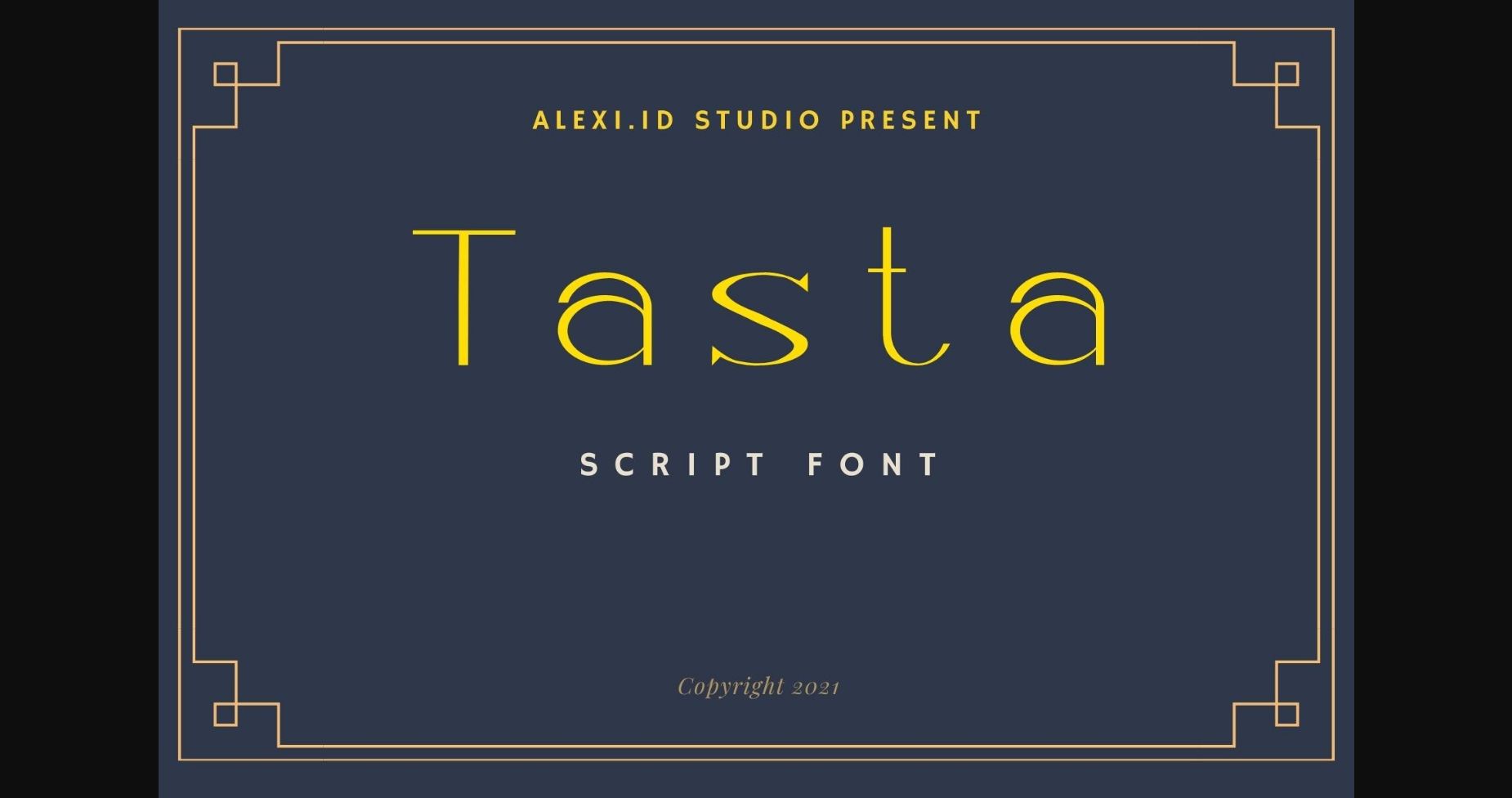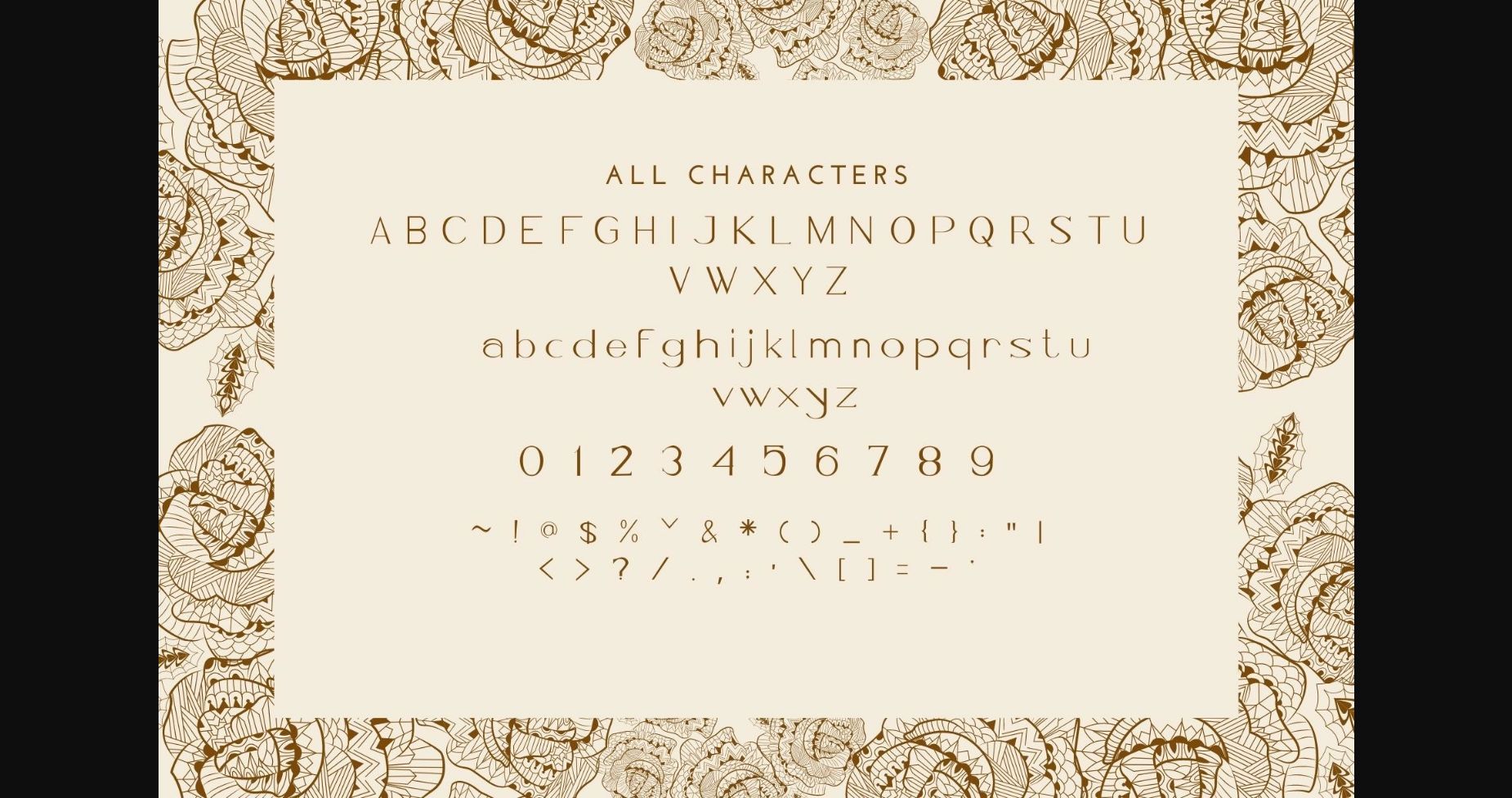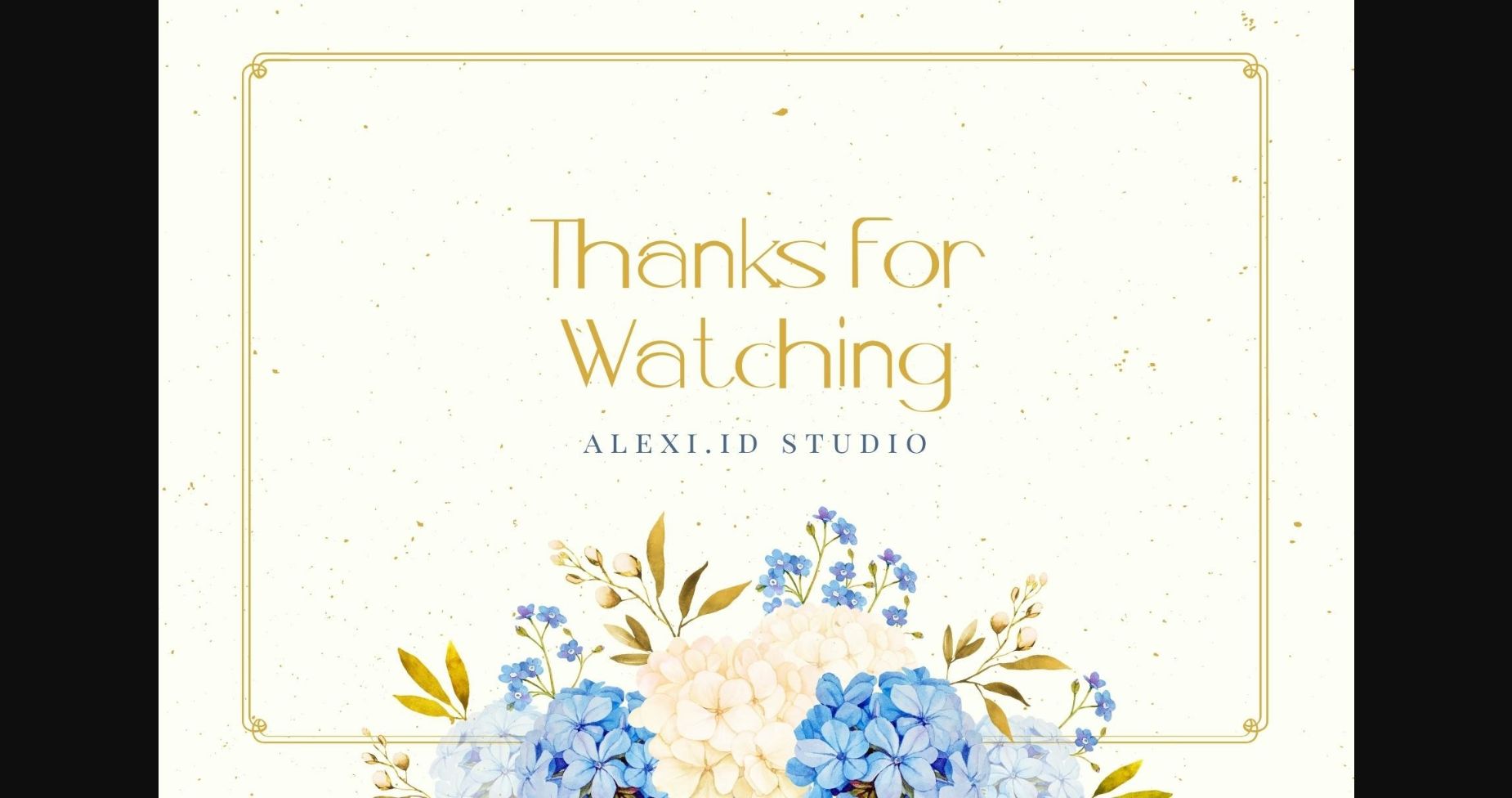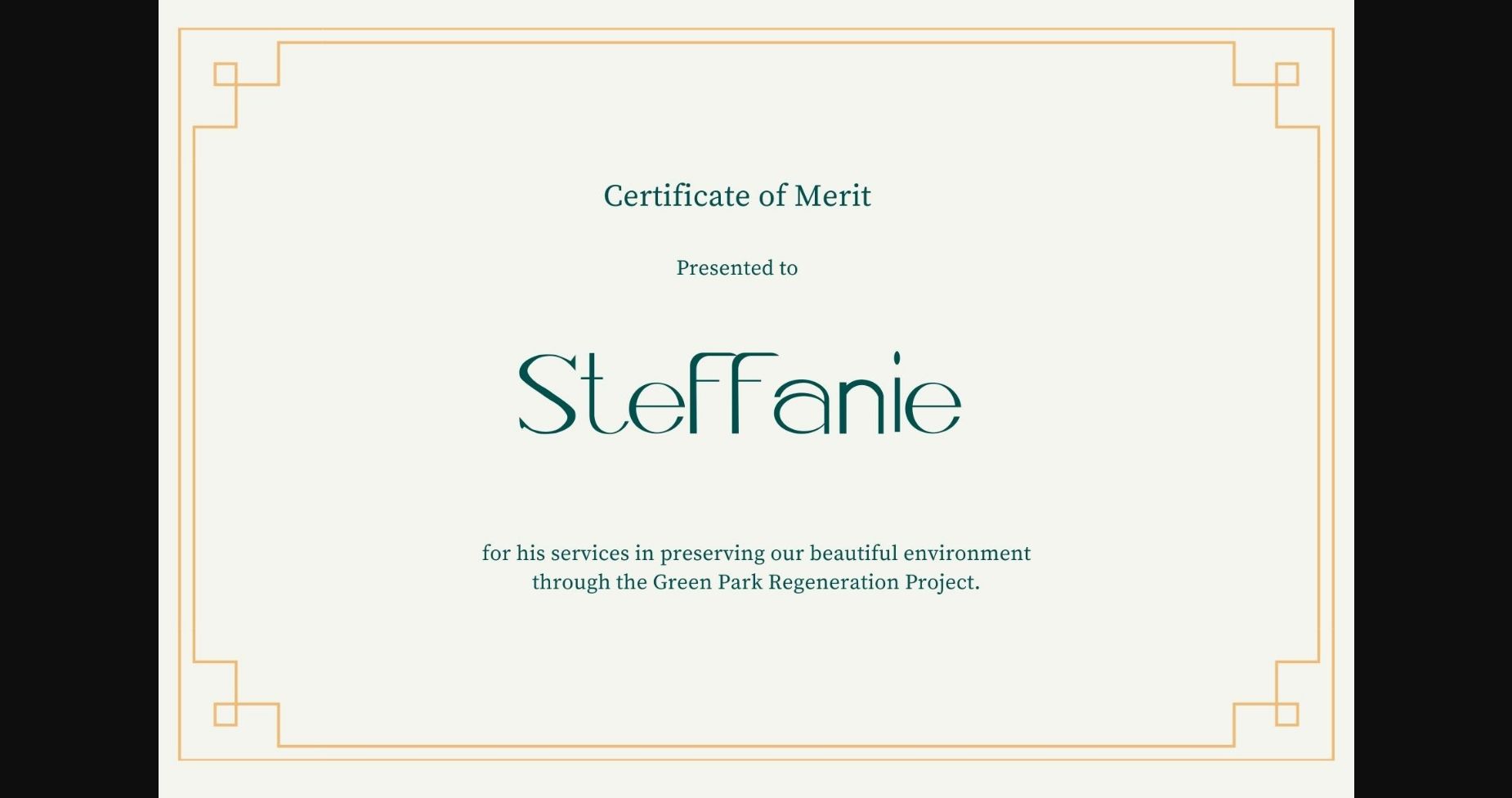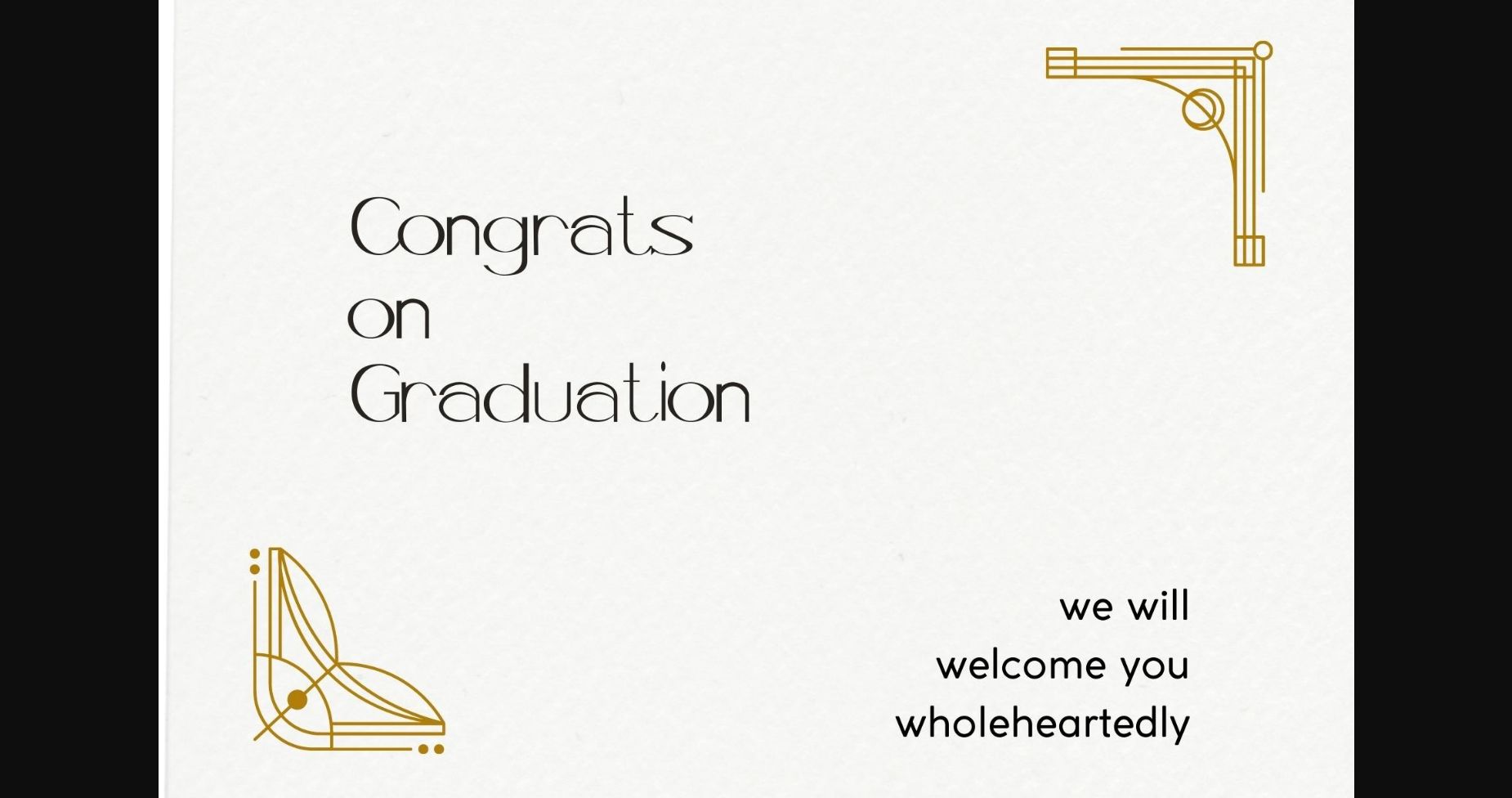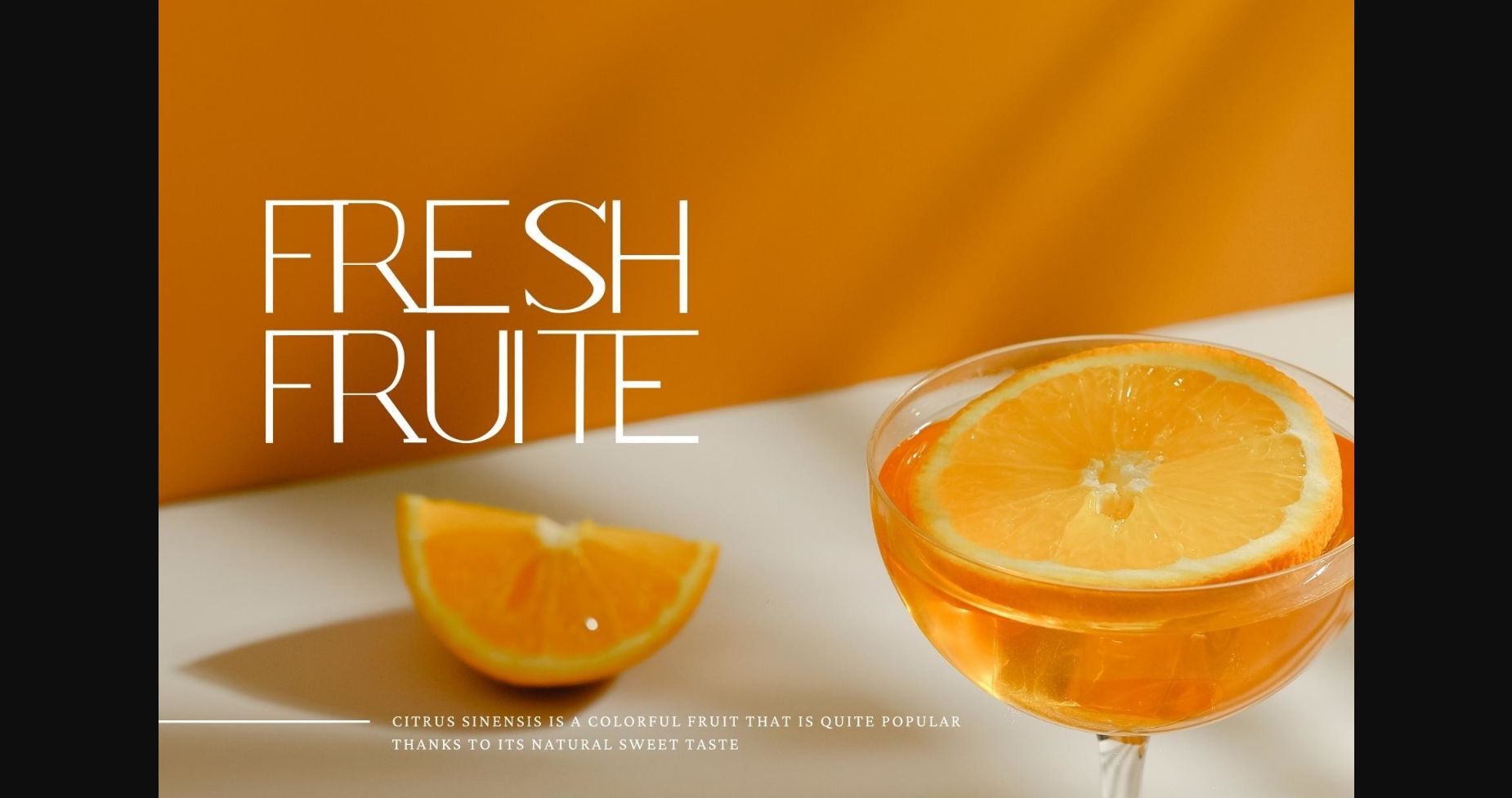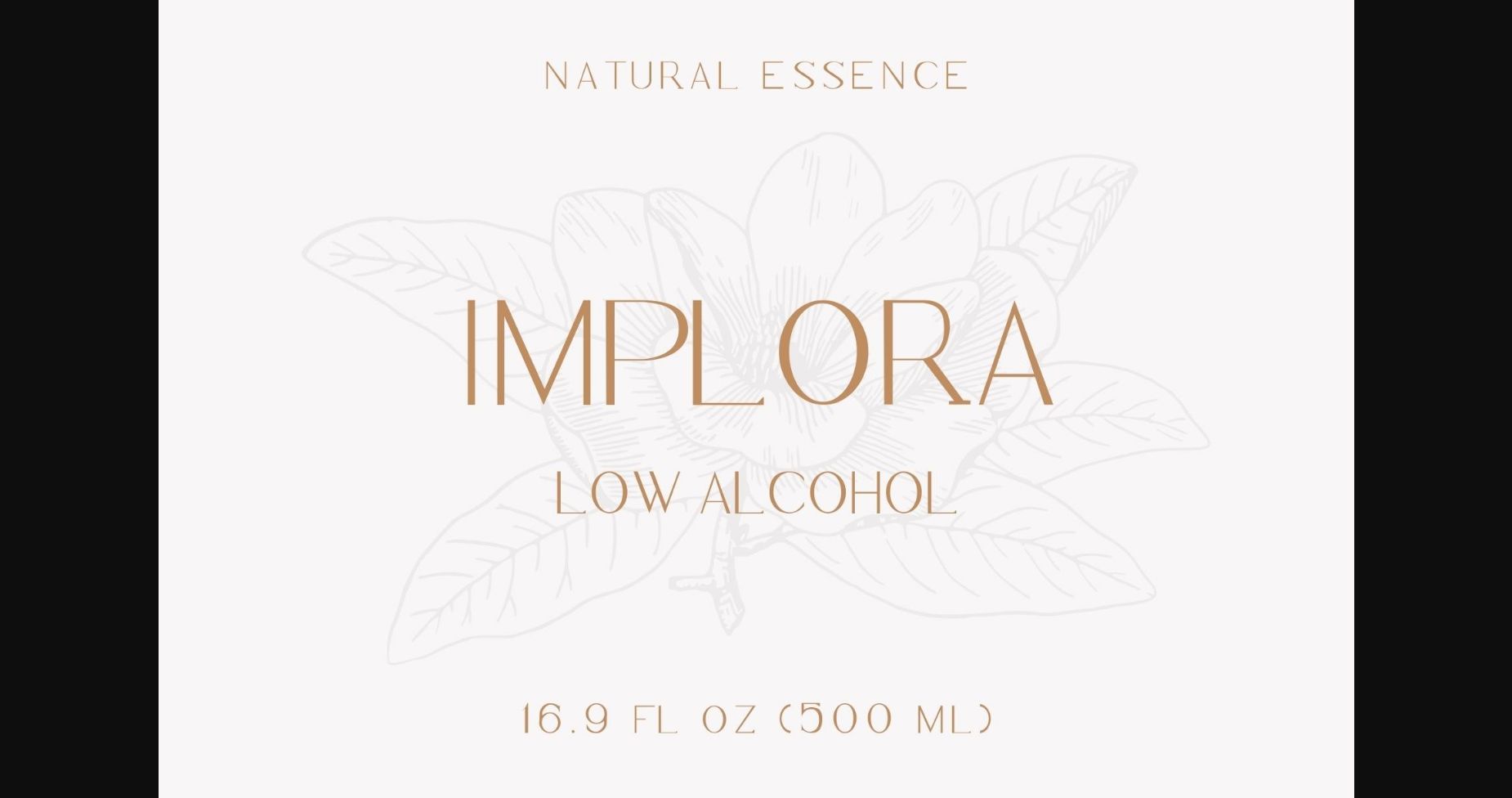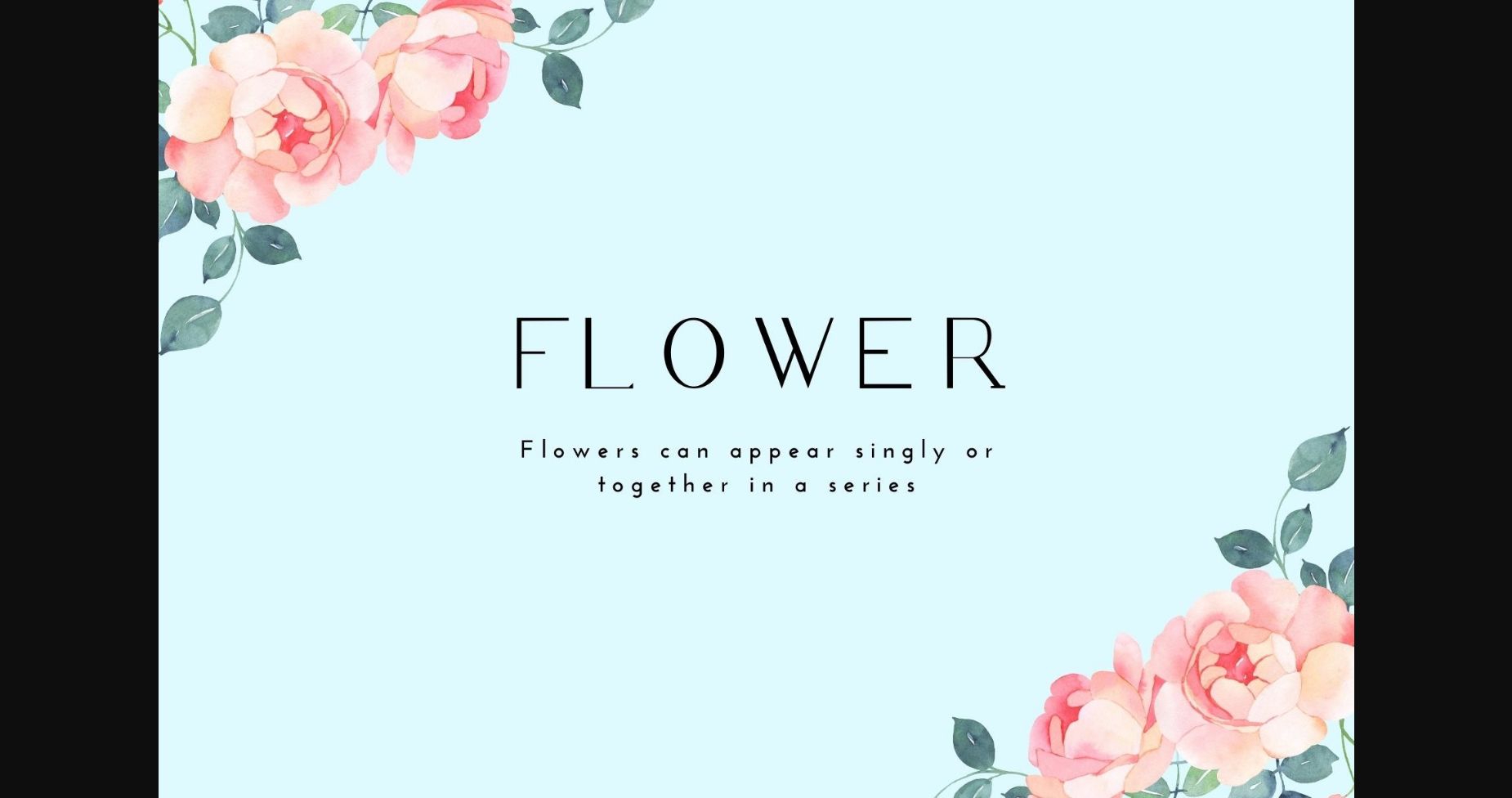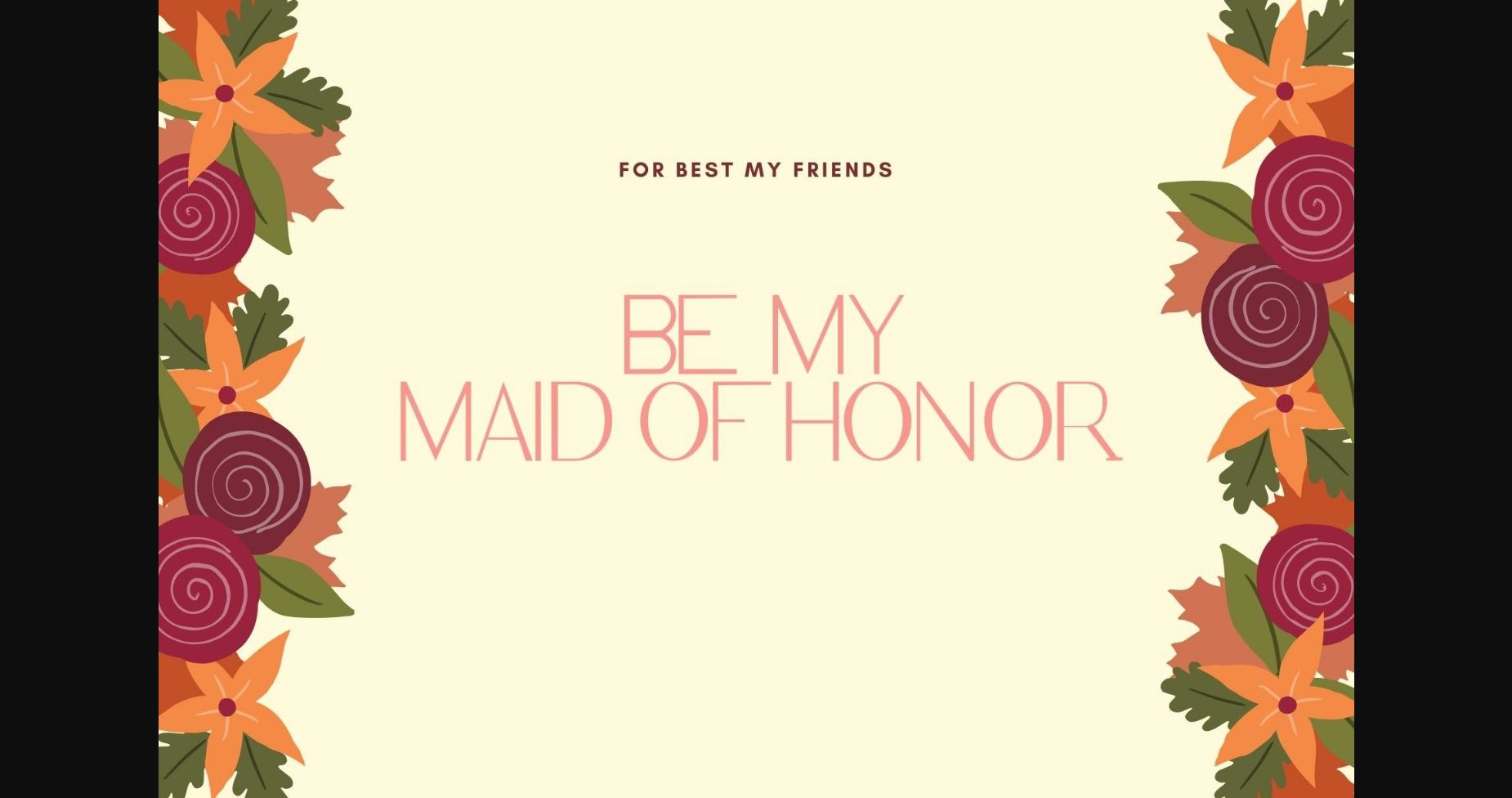
HomeSans Serif FontsTasta Font Sans Serif Fonts Tasta Font FacebookTwitterPinterestWhatsApp 1 of 11 ... Tasta Font Poster 2... Tasta Font Poster 3... Tasta Font Poster 4... Tasta Font Poster 5... Tasta Font Poster 6... Tasta Font Poster 7... Tasta Font Poster 8... Tasta Font Poster 9... Tasta Font Poster 10... Tasta Font Poster 11... About Tasta Font Tasta is a clean and stylish sans serif font. It is defined by smooth lines and is perfect for fashion branding or editorial designs. Add it confidently to your projects, and you will love the results. DOWNLOAD NOW 156 0 People also explored Bonica Font Auro Brinleigh Font Somehow Change Font Raghatha Font Kayofe Font Modern Script Font Mindset Font Good Summer Font Glitter Scrapbook Christmas Clipart Mockup Bundle Beauty Smile Font Alabastha Font TagsTastaTasta Font Previous articleInspire Me FontNext articleJackarta Font LEAVE A REPLY Cancel reply Comment: Please enter your comment! Name:* Please enter your name here Email:* You have entered an incorrect email address! Please enter your email address here Website: Save my name, email, and website in this browser for the next time I comment. Unlock Endless Creativity with the FREE September Clipart Huge Bundle (Valued at $700!) Personal Use Free Old Linoleum Personal Use Free Read more Maharany Personal Use Free Read more Autumn Flowers Font Personal Use Free Read more Charletto Personal Use Free Read more BLOG Free Fonts Risk: Why Free Fonts Can Be Dangerous for Designers Free Fonts Risk: Why Free Fonts Can Be Dangerous for Designers Using free fonts is a common practice in web and graphic design. However, the... Where to Buy American Fonts Online in 2024 To increase your work productivity, choose the most readable fonts. Exploring Font Trends